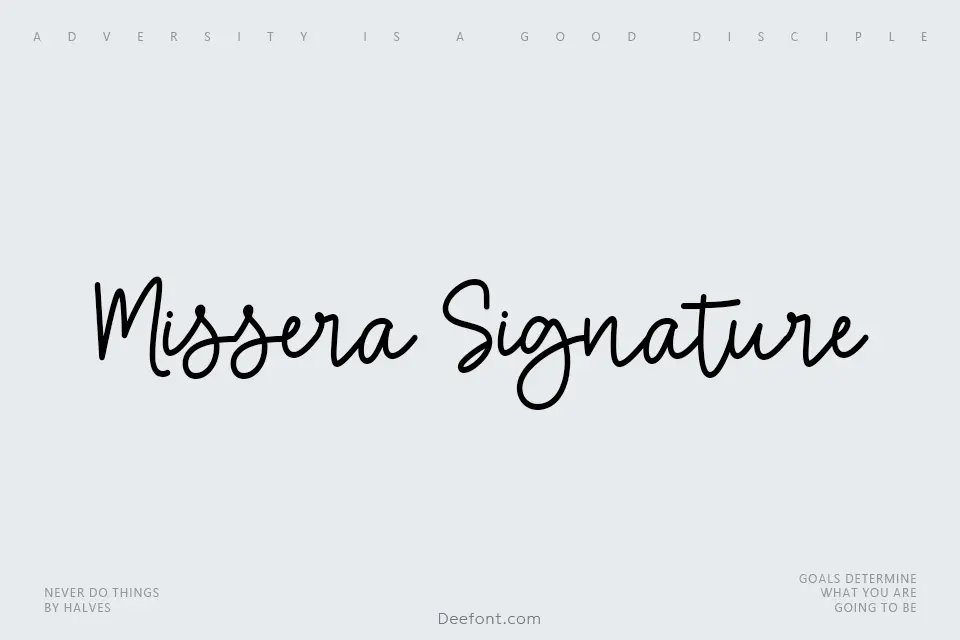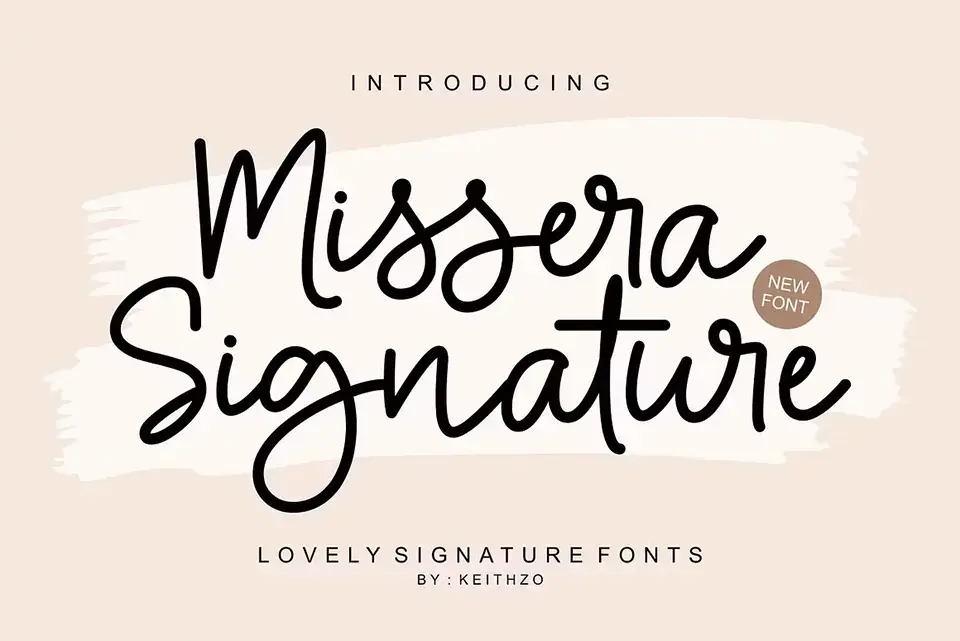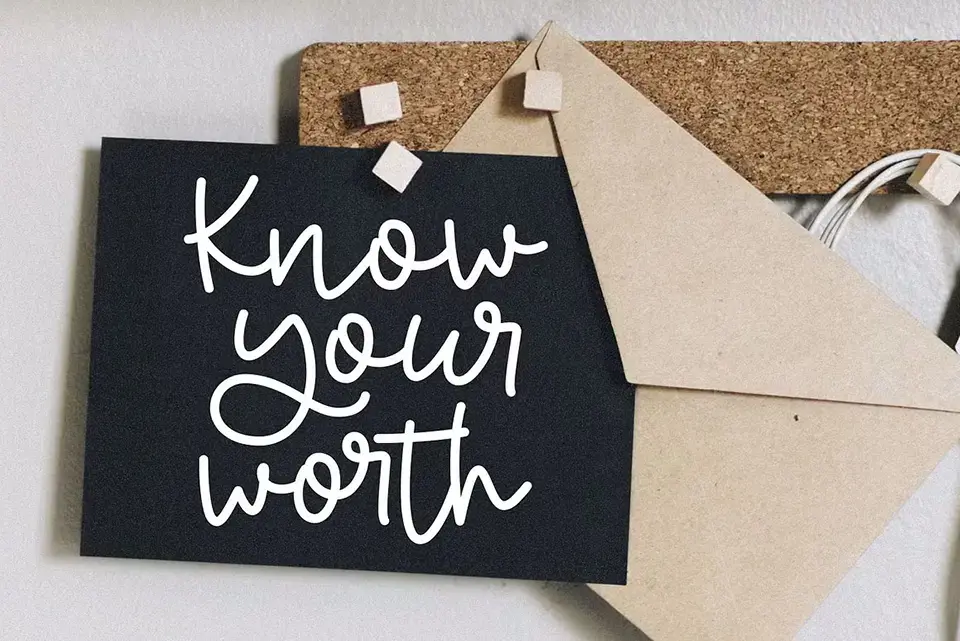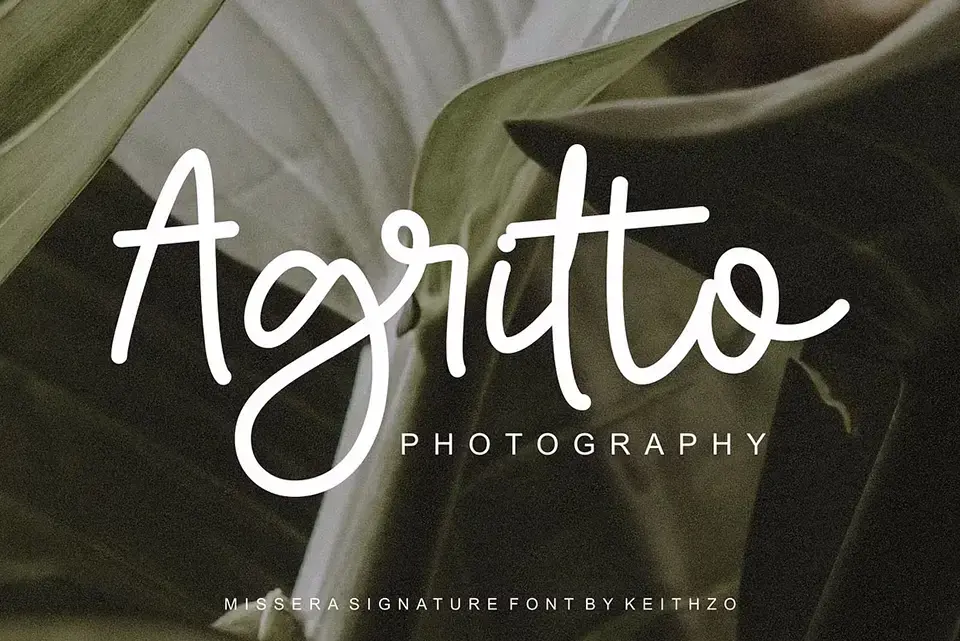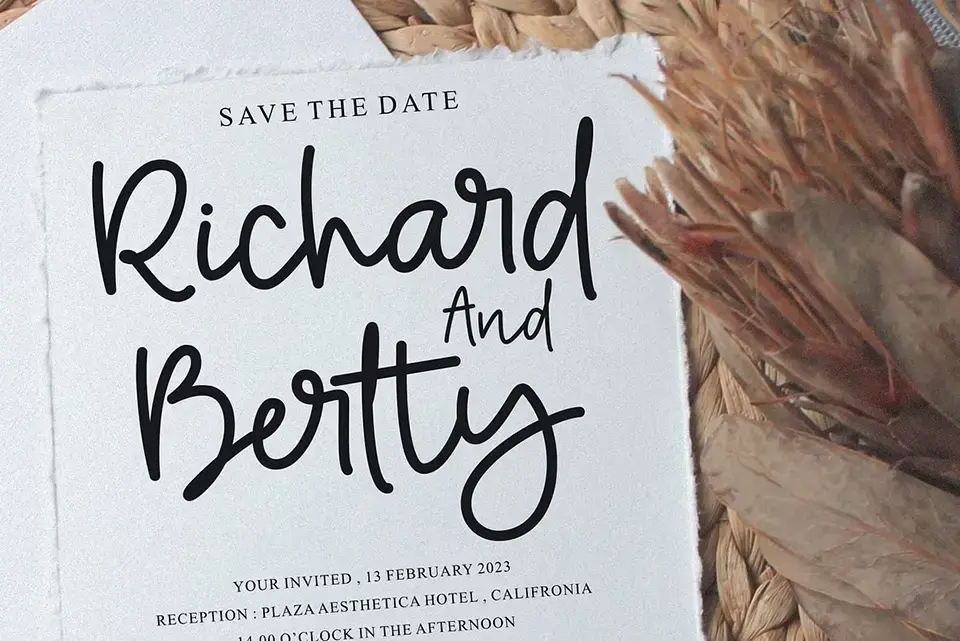
Missera Signature Font
Missera Signature is an elegant handwritten script typeface that captures authentic pen-drawn character and warmth. With flowing, natural letterforms and distinctive stroke variations, this font excels in signature-inspired applications including wedding invitations, event programs, greeting cards, and personal branding projects. Its organic feel adds genuine personality to posters, packaging, and decorative headings, making it ideal for designers seeking fonts that communicate sophistication and artistic expression.